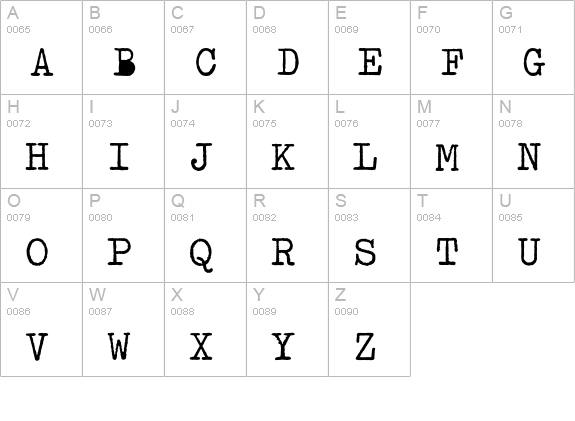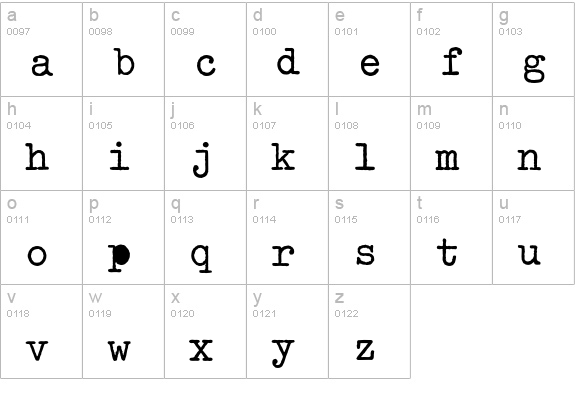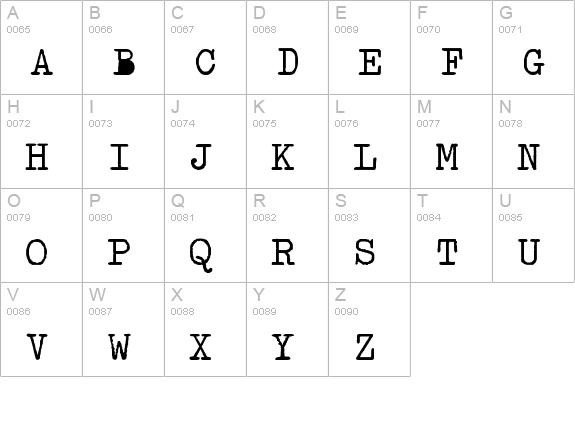
OldTypewriterEF-Bold Font Details
OldTypewriterEF-Bold is a strong, high-contrast variant in the OldTypewriterEF typeface family \xE2\x80\x94 well suited to headlines, attention-grabbing titles, and strong calls-to-action.
OldTypewriterEF-Bold is a vintage-inspired serif font that exudes a sense of nostalgia and charm. With its classic typewriter style, this font brings a touch of old-world elegance to any project. The bold weight adds a strong presence, making it perfect for headlines, titles, and emphasis. And the best part? OldTypewriterEF-Bold is available for free download at FontsMarket.com. Whether you're working on a retro design project, creating vintage-inspired posters, or simply looking to add a unique touch to your work, this font is sure to impress. Embrace the timeless appeal of OldTypewriterEF-Bold and give your designs a touch of vintage flair.